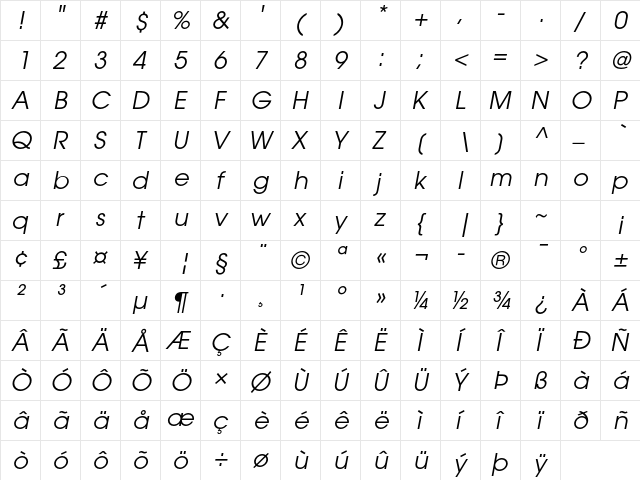
ITC Avant Garde Gothic Std Book Oblique Font Preview
| Style | Book Oblique |
| Designer | Herb Lubalin and Tom Carnase |
Design Context for ITC Avant Garde Gothic Std Typeface
ITC Avant Garde Gothic Std takes a clean, functional approach — its unadorned letterforms prioritise legibility and work reliably across screen and print environments. The dynamic lean of this cut emphasises speed and emphasis in any layout.
Font Pairing: Works well alongside a characterful serif or display font that can carry the expressive load while ITC Avant Garde Gothic Std handles the functional copy.
Pro Tip: Pair ITC Avant Garde Gothic Std with a display or serif font for headlines — its neutral character makes it an excellent supporting player in complex typographic systems.